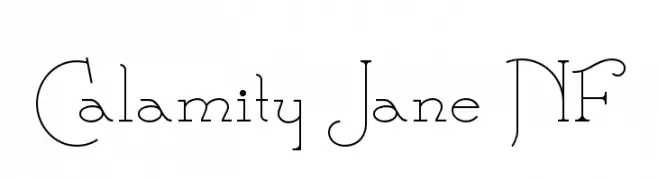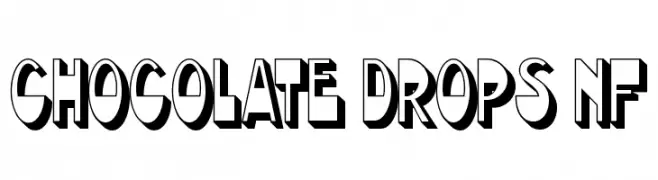
A bold, geometric font with strong lines and modern appeal.
A bold, geometric font with a modern, industrial style.
A bold, playful font with chunky, rounded characters and a whimsical style.
A bold, decorative font with an inline, three-dimensional style.
A bold, geometric font with angular, block-like characters.
An elegant, decorative font with intricate swirls and vintage charm.
A bold, angular font with a futuristic and geometric style.
A bold, high-contrast serif font with strong, angular serifs and a commanding presence.
A bold, retro-style font with a 3D shadow effect.